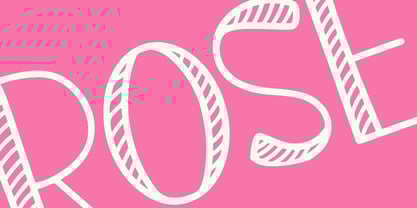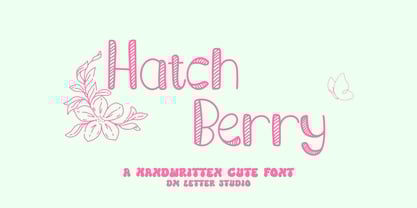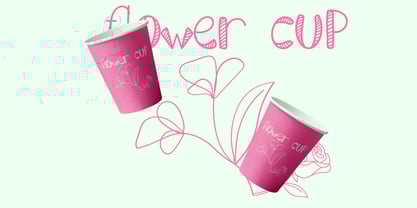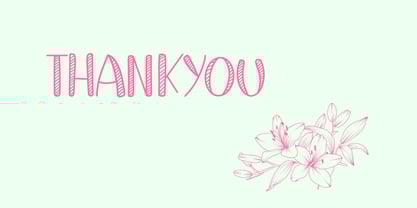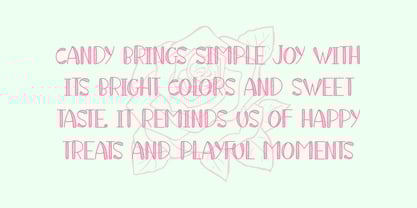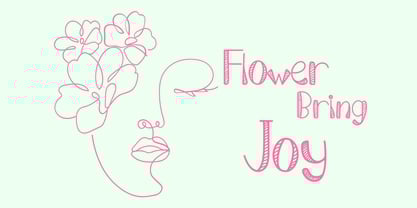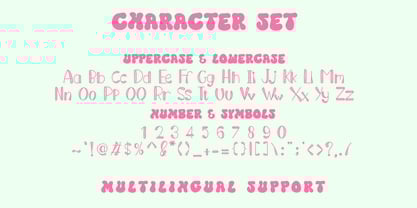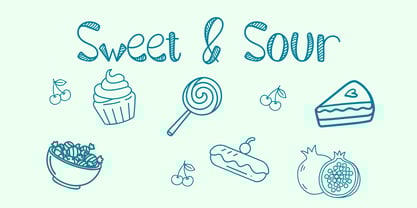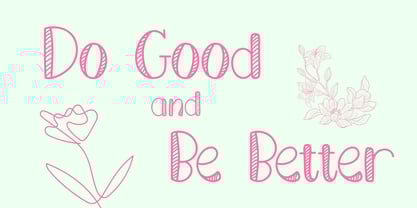
Hatch Berry
The Hatch Berry Font Family was designed by Dimas Prasetyo and published by DM Studio. Hatch Berry contains 1 styles.
Meet Hatch Berry, the Cute Handwritten Font Hatch Berry is a playful handwritten font designed to bring sweetness and charm into your designs. The strokes feel soft, rounded, and friendly, giving every word a cheerful handwritten personality. Its cute style makes it perfect for designs that need warmth and a lighthearted vibe. Use Hatch Berry for kids' branding, sticker designs, greeting cards, social media posts, product packaging, planners, and playful merchandise. As a result, your typography feels adorable, joyful, and instantly inviting.   Why Hatch Berry sells First, Hatch Berry installs quickly and works smoothly in Canva, Photoshop, and Illustrator. Next, the rounded handwritten structure keeps text readable while still looking cute and expressive. Then your layouts come together faster because the font already carries personality without extra decorative elements. Moreover, cute handwritten fonts are highly popular for kids' products, stationery, and lifestyle content. Therefore, Hatch Berry fits perfectly into playful font collections.   Fast layouts with the Hatch Berry Font Start with short words, names, or cheerful quotes. After that, add pastel colors or soft shadows to emphasize the cute look. Because the strokes are friendly and rounded, keep the background light and simple for better clarity. In addition, pair it with a clean sans serif for captions and secondary text. Finally, try palettes like pastel pink and cream, mint and white, lavender and peach, or sky blue and yellow for a sweet, playful vibe.   Creative uses and quick wins Kids' product branding and toy packaging Greeting cards and birthday invitations Sticker designs and printable planners Instagram posts and cute quote graphics What you get Uppercase and lowercase letters Numbers and basic punctuation Design tips for Hatch Berry Use Hatch Berry for titles, names, and short phrases instead of long paragraphs. Also, try pastel palettes and soft shadows to highlight the cute personality. For print, use high-contrast soft colors so shapes remain clear. For digital content, increase the size slightly to maintain readability on mobile screens. Finally, combine it with doodles, hearts, stars, or simple shapes to strengthen the playful style.